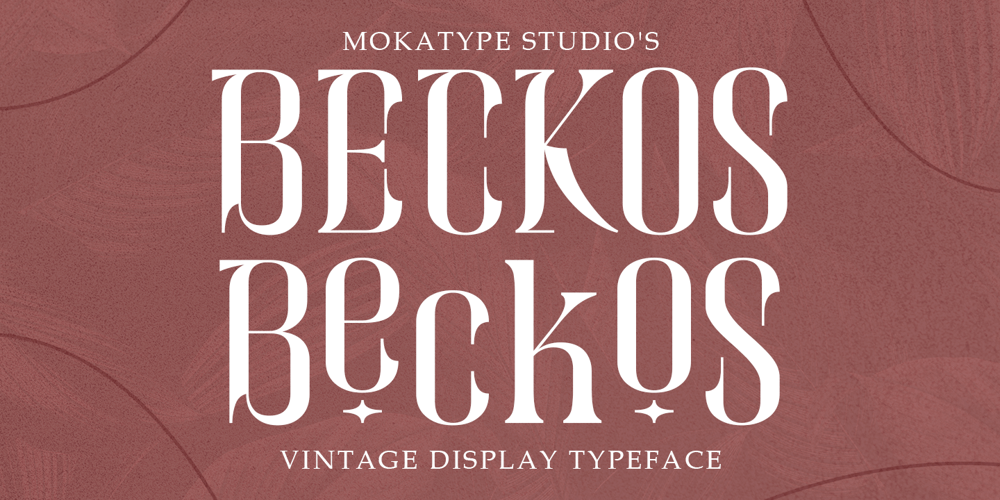
Beckos Font Family was designed by Abdul Malik Wisnu, Rivo Adriansyah and published by Mokatype Studio. Beckos contains 1 styles and family package options. Beckos is an experimental font inspired by Vintage typography and modern serif font. This font is developed to look elegant and classy. This font is built with alternate, ligature that can be used in any design need that wants to look elegant, classy, and luxurious.Works on PC & Mac, simple installations, accessible in Adobe Illustrator, Adobe Photoshop, Adobe InDesign, and even works on Microsoft Word. PUA Encoded Characters – Fully accessible without additional design software. Fonts include multilingual supportImage used: All photographs/pictures/vectors used in the preview are not included, they are intended for illustration only. Thank You